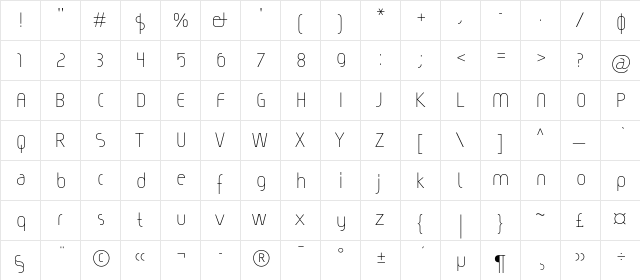
Magic Regular
Design Context for Magic Typeface
Magic takes a measured approach to typography — its balanced proportions and neutral character make it a reliable workhorse for both digital and print work.
Pro Tip: Use Magic in both headline and body roles to test its range before committing to a single application.